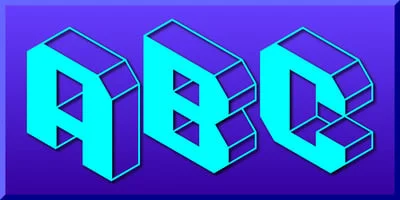
Isometric Initial Caps Font
The Isometric Initial Caps Font is a unique and intriguing choice for projects that need a bold, modern, and architectural aesthetic. Its three-dimensional, geometric letterforms are designed to create a sense of depth and structure, making it perfect for tech branding, engineering firms, and futuristic movie titles. This font is a great fit for designs that want to convey precision, innovation, and a sense of sophisticated design. Whether you're creating a logo for a new video game or a title for a technical manual, the Isometric Initial Caps Font adds a layer of quiet confidence and strong visual presence, ensuring your message is delivered with authority and style.
What makes this font so exciting is its exceptional ability to blend complex, three-dimensional shapes with clear, readable letterforms. The Isometric Initial Caps Font features letterforms that are not only aesthetically pleasing but also incredibly legible at any size. The font’s solid, structured appearance gives it a sense of stability and permanence, making it an excellent choice for branding that aims to feel established and trustworthy. It works hard to enhance your design without distracting from the content, ensuring a polished and effective result every time. Its minimalist approach and strong character make it a powerful tool for visual storytelling.
The Isometric Initial Caps Font family is typically comprehensive, providing a full suite of weights and styles to give you maximum creative control. The family often includes a wide range of weights from thin to bold, with corresponding italic versions. This extensive variety is essential for creating a strong typographic hierarchy in your designs. You can use the lighter weights for subtle accents and long-form text, while the bolder weights are perfect for creating powerful headlines and calls-to-action. The Isometric Initial Caps Font is an excellent opportunity to explore the versatility of this typeface and see how its different styles can work together to build a strong and cohesive brand identity.
By choosing the Isometric Initial Caps Font, you’re opting for a typeface that embodies strength, sophistication, and modern appeal. It’s a font that works tirelessly to ensure your projects are not only beautiful but also highly effective at communicating a message of quality and contemporary professionalism.